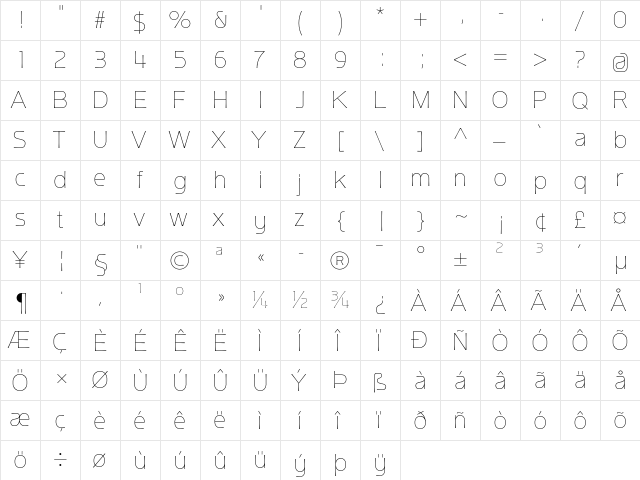
Ata Thin Regular
Design Context for Ata Thin Typeface
Ata Thin is a composed and adaptable typeface that performs quietly and consistently across a wide range of design contexts. The delicate stroke weight brings airiness and refinement to layouts.